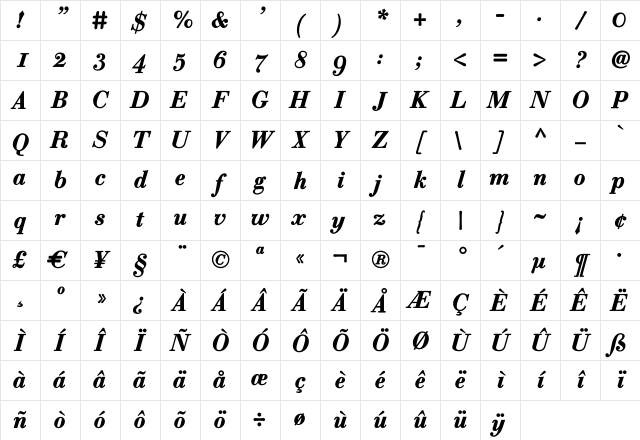
Robusta Bold Italic
Foundry: Gert Wiescher, Wiescher-Design, Munich, Germany, www.wiescher-design.de
Design Context for Robusta
Robusta is a composed and adaptable typeface that performs quietly and consistently across a wide range of design contexts. The slanted form adds forward momentum and visual energy. Its bold stroke weight gives it real presence on the page.
Pro Tip: Use Robusta for emphasis, pull quotes, and subheadings where its slanted energy can add rhythm to the layout.
Who designed the Robusta Bold Italic font?